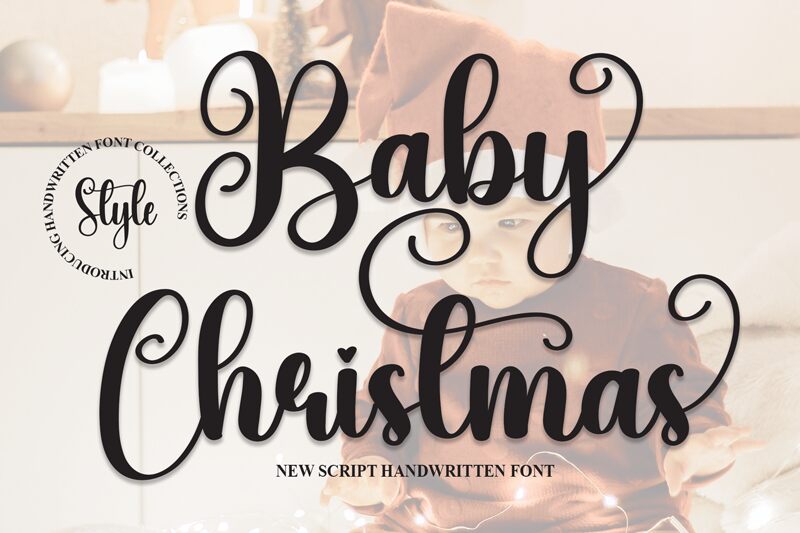
Baby Christmas
Baby Christmas, a calligraphic masterpiece by Scratchones, embodies the joy and warmth of the holiday season with its elegant and flowing letters. Each stroke of this font carries a sense of festivity and whimsy, making it an exceptional choice for crafting heartfelt Christmas cards, event invitations, and seasonal branding. Its distinct blend of traditional calligraphy with playful curves lends itself to both formal and informal designs.
The aesthetic appeal of Baby Christmas lies in its balance between sophistication and charm. The smooth connections between characters suggest a hand-drawn quality that is both inviting and visually pleasing. This font's style exudes personality, ensuring that any message conveyed will capture the reader's attention with grace.
Perfect for designers seeking to infuse their projects with a touch of festive spirit without sacrificing elegance, Baby Christmas is versatile enough for a variety of creative endeavors—from holiday-themed marketing campaigns to personalized gift tags. Its unique characteristics promise to elevate any design it graces with an air of bespoke craftsmanship.